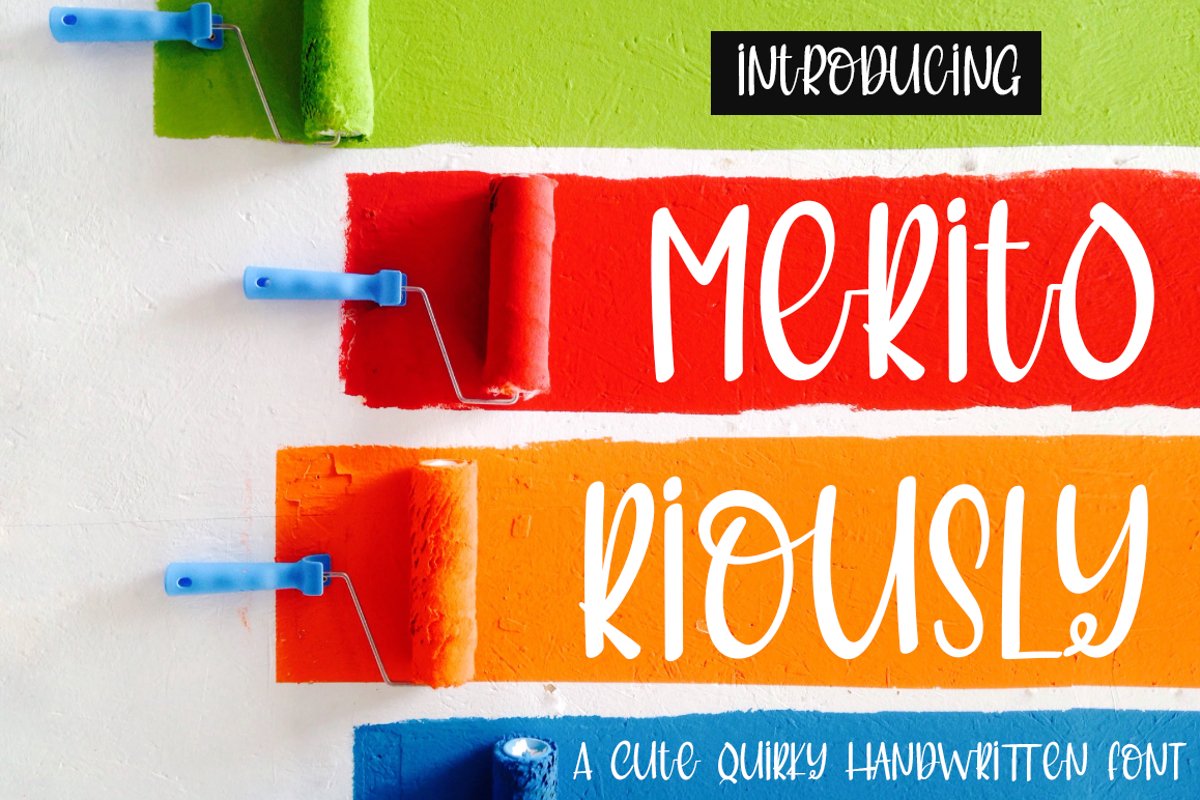
Meritoriously a Cute Quirky Handwritten Font
Meritoriously
Introduce my New Product "Meritoriously" a cute quirky handwritten font. Very suitable for greeting cards, branding materials, business cards, quotes, posters, and more!
These fonts are perfect for all brand :)
- UpperCase & Lowercase Numerals & Punctuations
- Ligatures Multilingual characters (AÀÁÂÃÄÅCÇDÐEÈÉÊËIÌÍÎÏNÑOØÒÓÔÕÖUÙÜÚÛWYÝŸŸÆŒßÞàáâãäåæçèéêëìíîïðñòóôõöøùúûüýÿ)